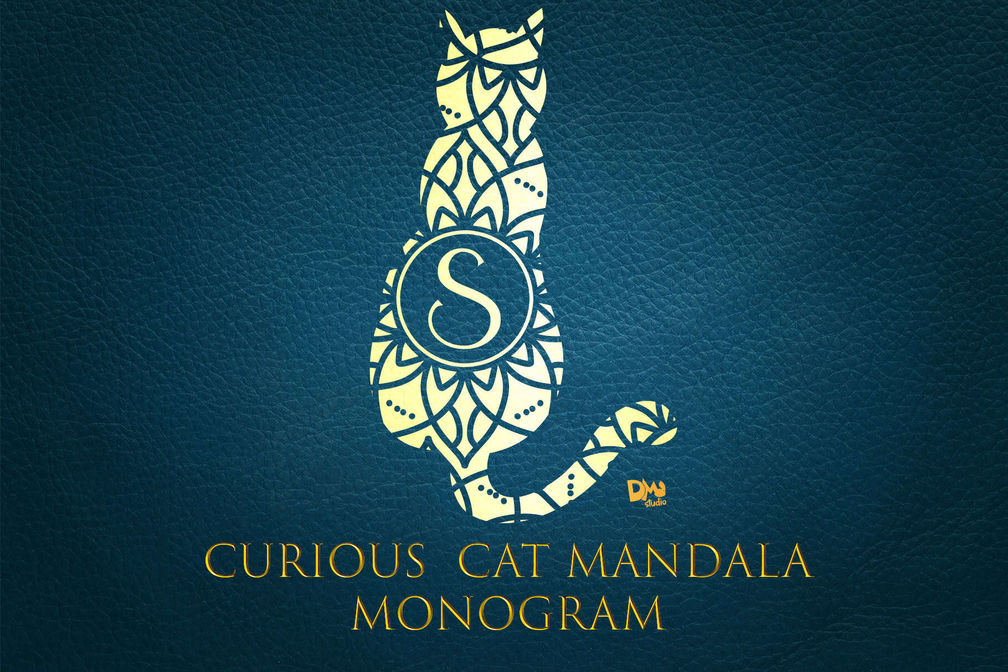
Curious Cat Mandala Monogram
Curious Cat Mandala Monogram – Whimsical & Intricate Monogram Font
Curious Cat Mandala Monogram is a delightful font that brings together the inquisitive nature of a curious feline and the elegant complexity of mandala patterns. Each character is designed with a charming, exploring cat silhouette paired with ornate mandala details, creating a playful yet refined aesthetic. Ideal for children’s designs, pet branding, cozy home decor, and artistic monogram projects, this font captures wonder and personality in every letter.
• Curious Cat Poses with Mandala Embellishments: Every letter is uniquely illustrated with a playful cat in a curious stance, surrounded by intricate mandala art.
• Playful Meets Elegant: Blends the charm of animal illustration with refined ornamental design.